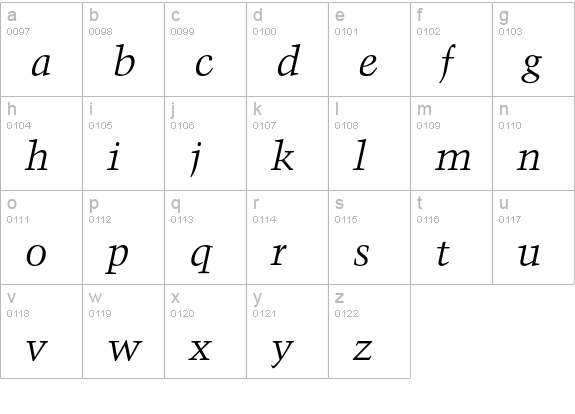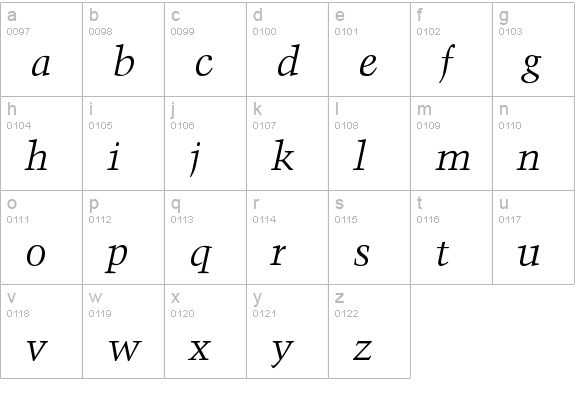
Trump Mediaeval Italic Font Details
Trump Mediaeval Italic is a distinctive, italic variant in the Trump typeface family \xE2\x80\x94 well suited to design and typography projects.
Trump Mediaeval Italic font is a timeless and elegant typeface that captures the essence of the medieval era. With its graceful curves and intricate details, this font exudes a sense of history and sophistication. Its distinct italic style adds a touch of elegance and uniqueness to any design project. What makes Trump Mediaeval Italic font even more remarkable is that it is available for free download at FontsMarket.com. This means that designers, artists, and typographers can enjoy the beauty of this font without any cost. Whether you are working on a personal project, a professional design, or simply want to add a touch of class to your documents, Trump Mediaeval Italic font is the perfect choice. With its legible yet distinctive characters, this font is versatile and can be used in a variety of contexts. From logos and branding materials to invitations, book covers, and posters, Trump Mediaeval Italic font will elevate your designs and make them stand out. Its timeless appeal will bring a touch of history to any project, while still remaining relevant and impactful in today's digital world. So why wait? Don't miss the opportunity to enhance your designs with this remarkable font. Head over to FontsMarket.com and download Trump Mediaeval Italic font for free. Join the countless designers who have already discovered the beauty and versatility of this font, and start creating stunning visuals that leave a lasting impression.